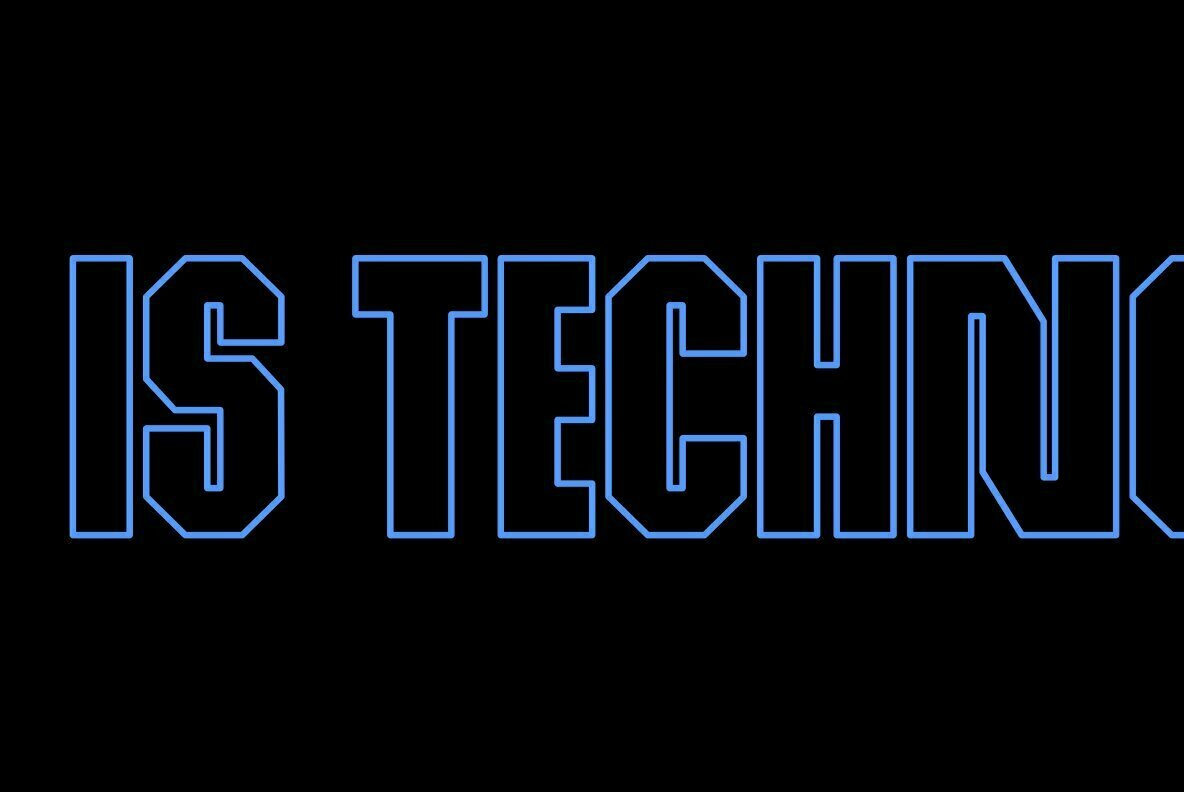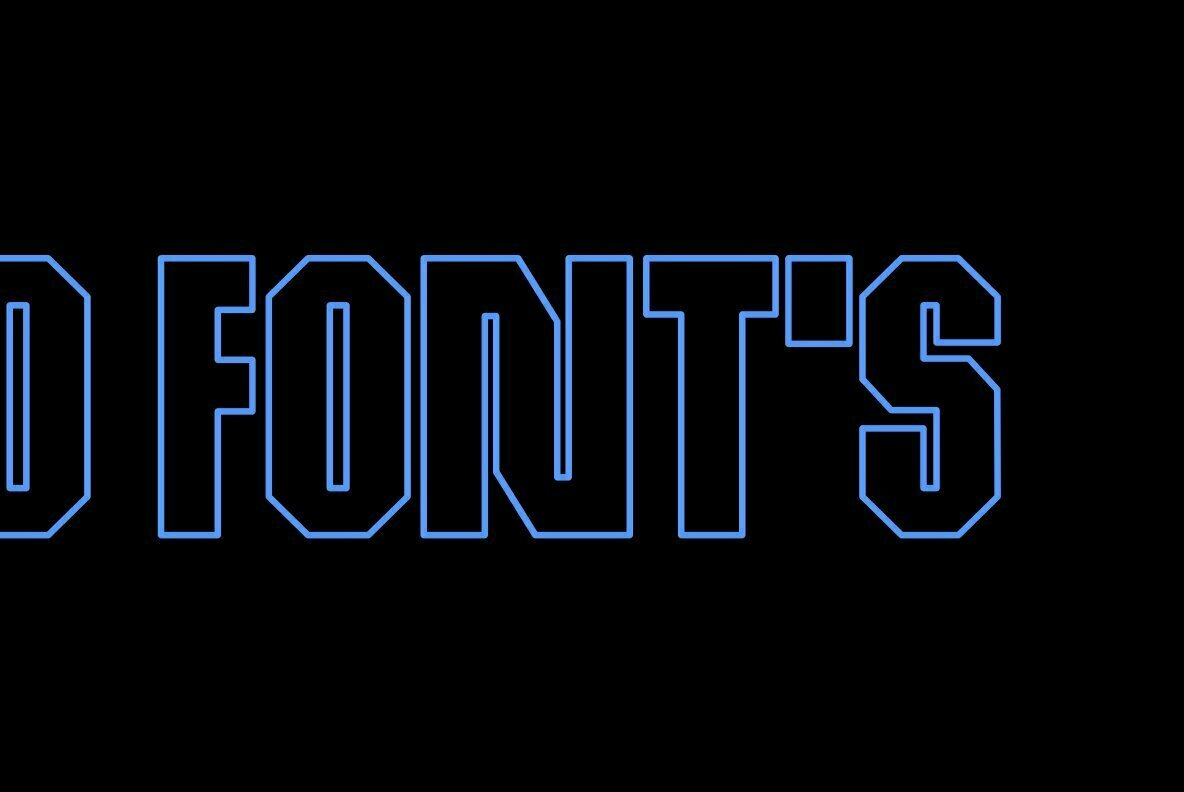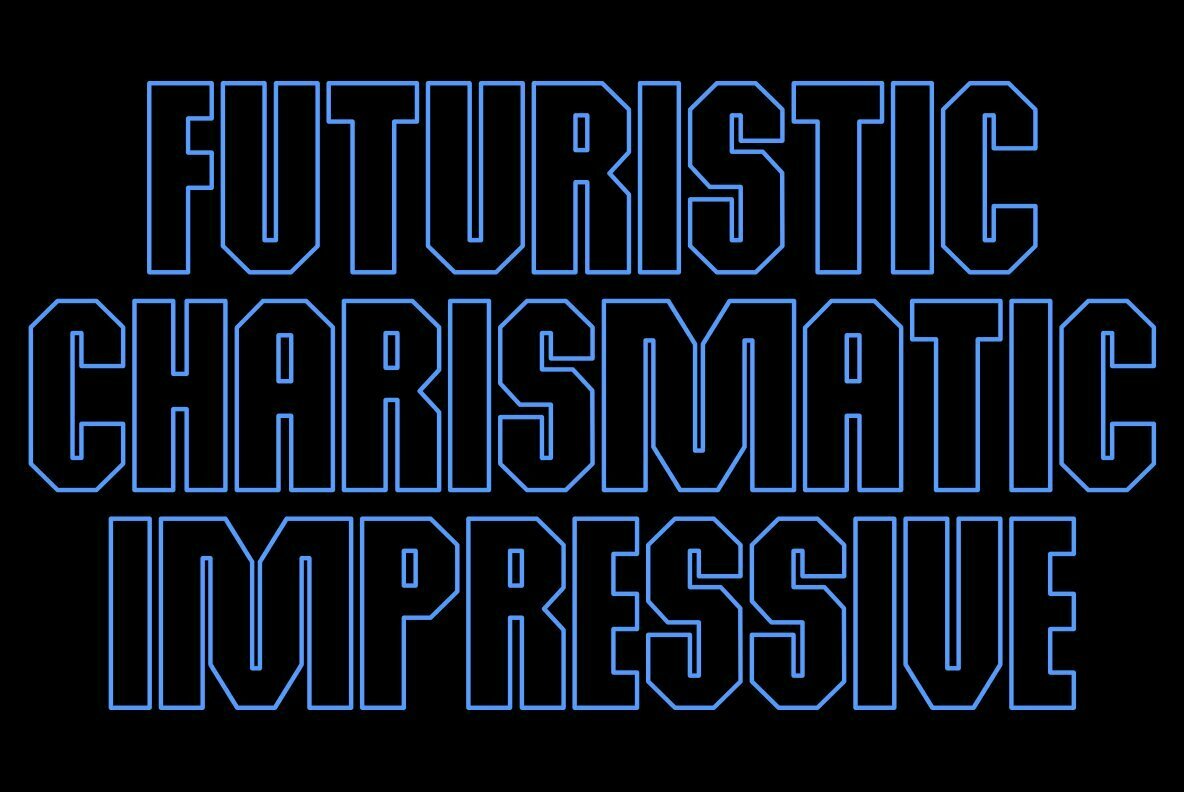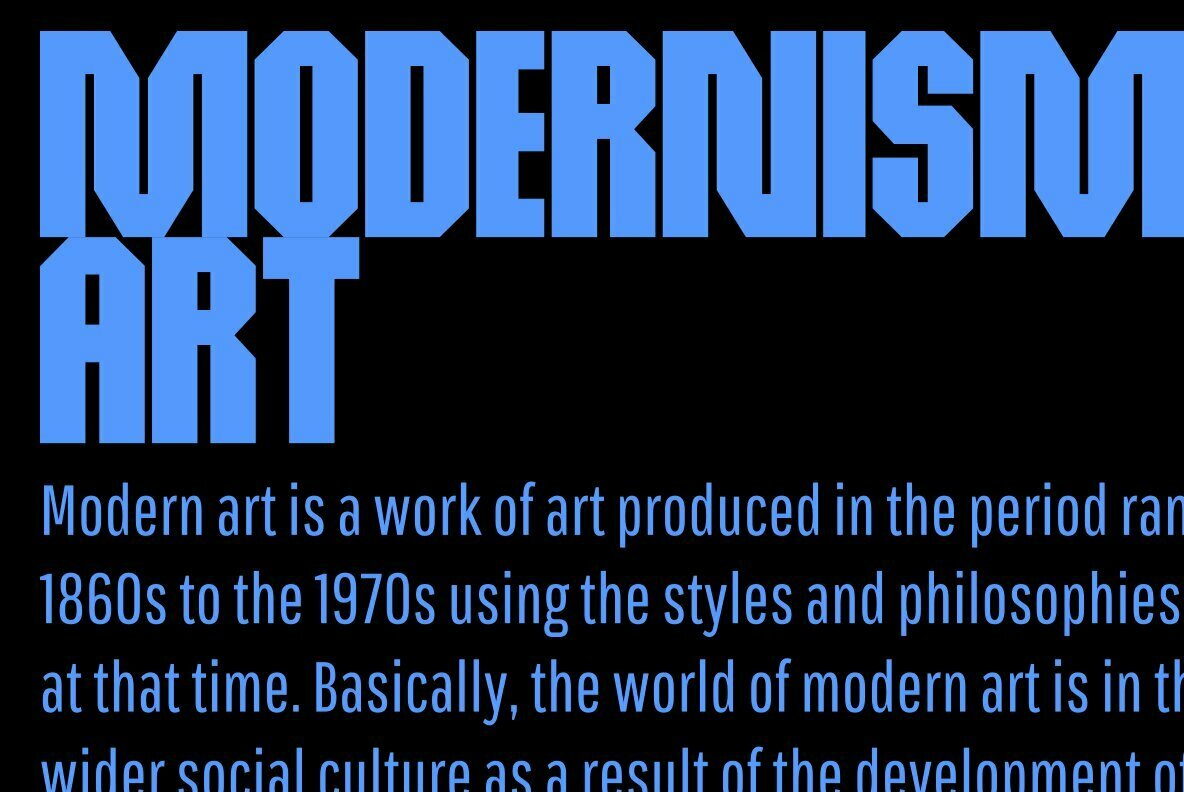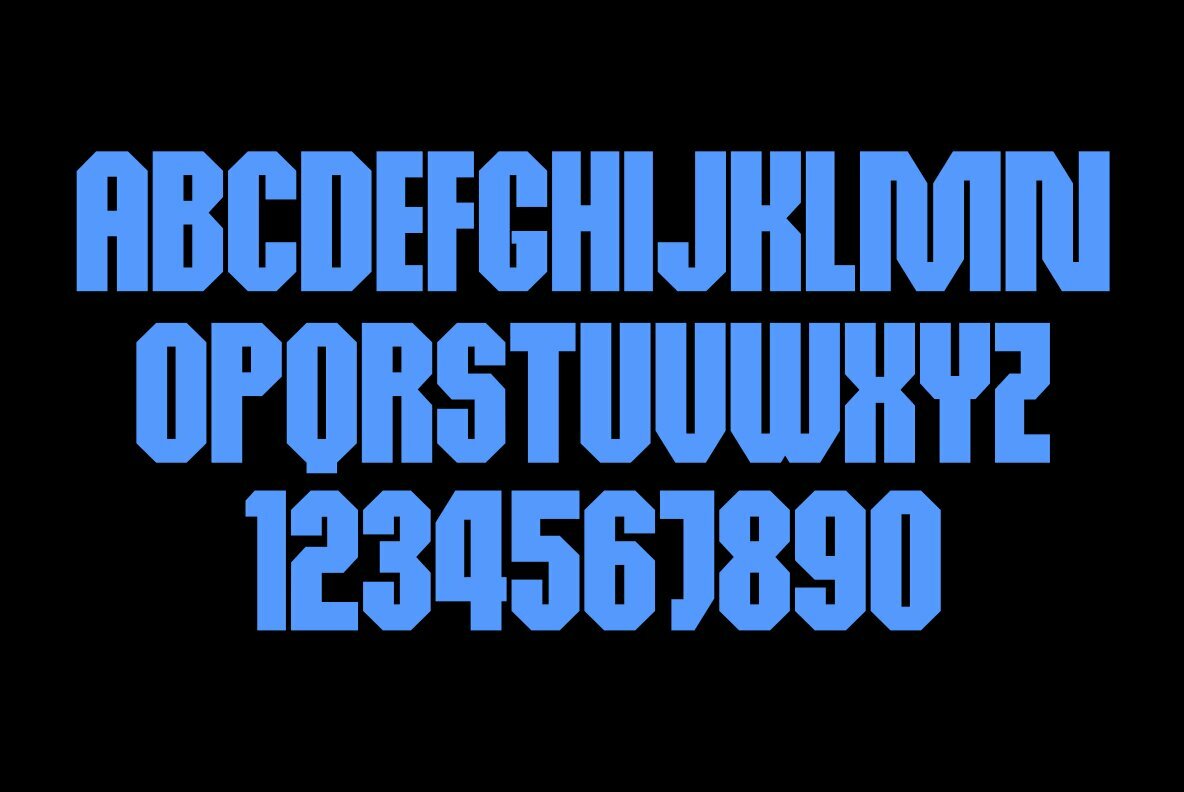
Electroz Font
The Electros typeface is a futuristic, techno-themed font (and web font) with condensed width and slanted cuts at the corners of each letter. This makes it look cool as well as having strong values that would work for use in various designs related to future themes or even if you want something more minimalistic then this might be just right!